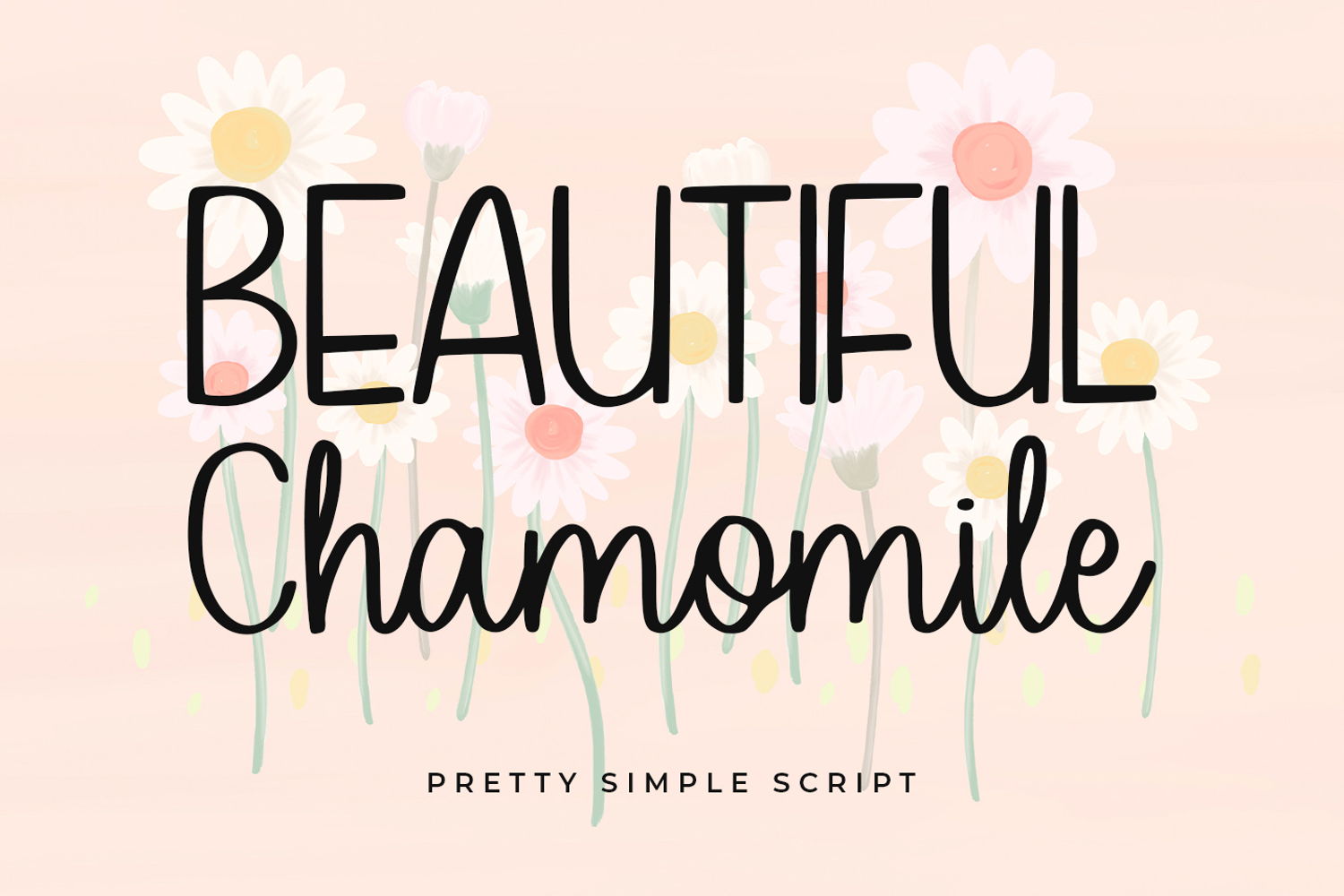
Beautiful Chamomile
introducing
BEAUTIFUL CHAMOMILE
- pretty simple script font-
BEAUTIFUL CHAMOMILE is a beautiful script font.
It is great for branding, quotes, logos, t-shirt designs, tote bag designs, cards, banners, social media, and more.